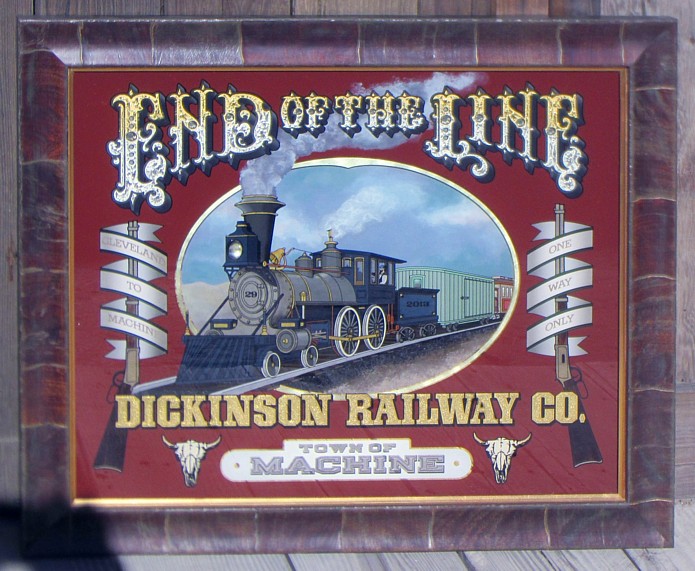
Reference material
Was just ruminating over great work I've seen over the years and was wondering if anyone knows where the "Boss" got his reference material for this fine piece. Outright theft is a great compliment and have done that many times. Maybe someone can get in touch with the guys who worked with Rick on this like Dave Trujillo. I've lost touch with him over the years. I'd love to know where the original oil painting came from.
Re: Reference material
Back in 2013, we did this piece as a meet project.
Mr. Dickinson talked about doing a train piece, so I put
this artwork together. I referenced Rick's "Pier Pale Ale"
for the "End of the Line" letters as a tribute to him. David Trujillo is alive and well and living in Southern California.
Re: Reference material
Great looking piece and almost as over the top as Rick's. When you see Dave say hi for me (I've lost track of him since....) and see what he has to say about the Redondo Beach piece. Would love to know.
Re: Reference material
I love that piece, Doug. Stunning to see it in person at the bar on Manhattan Beach (I don't recall the name). I wonder if they still have Rick's work hanging in there.
Maybe Bill Hueg did the oil painting? Not sure.